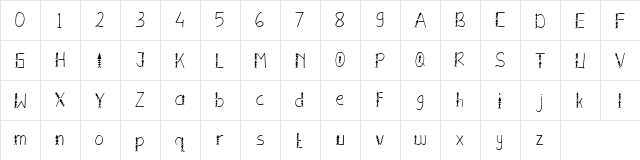
Little Bone Regular
Design Context for Little Bone Typeface
Little Bone is a composed and adaptable typeface that performs quietly and consistently across a wide range of design contexts.